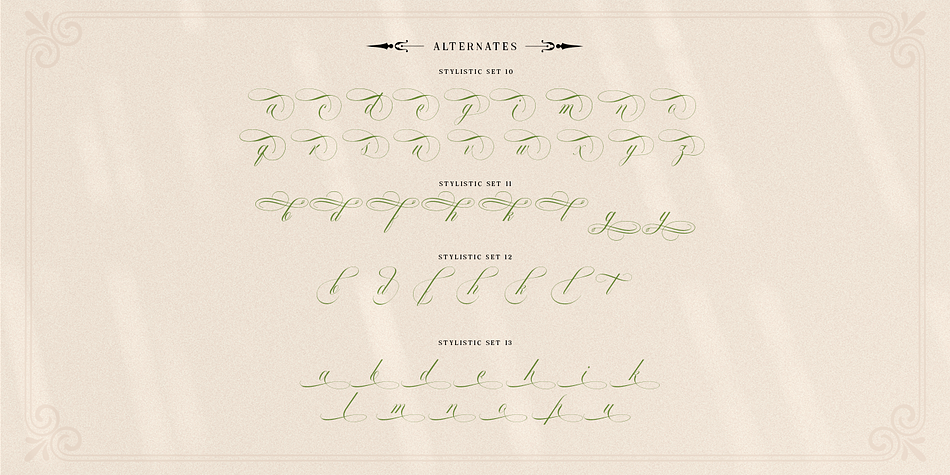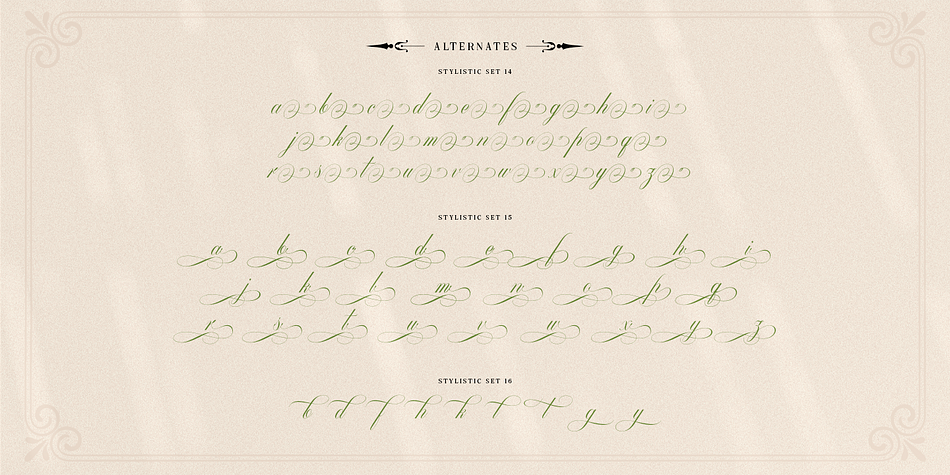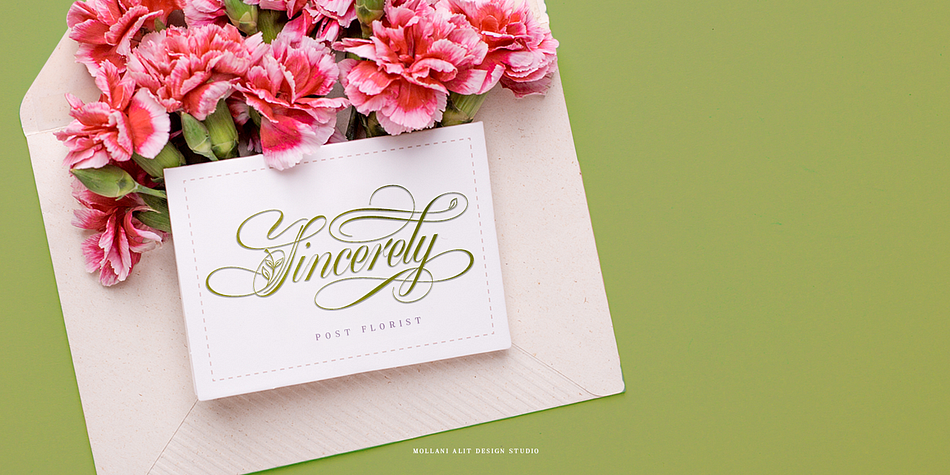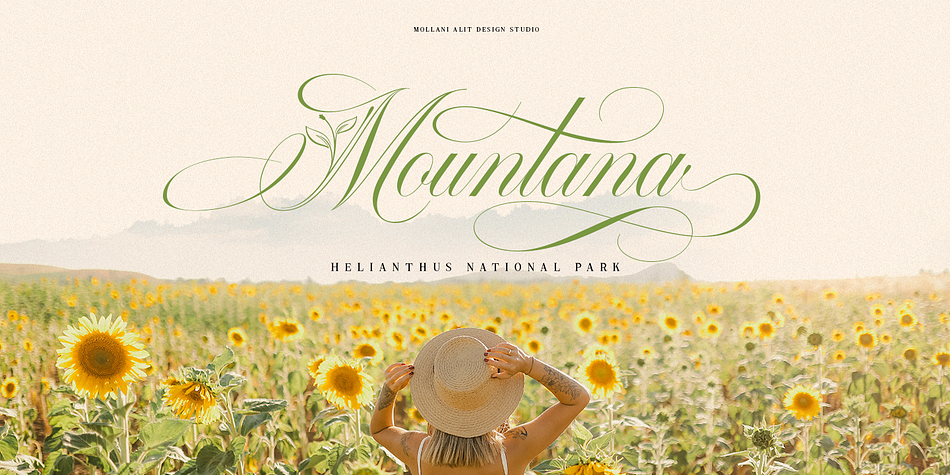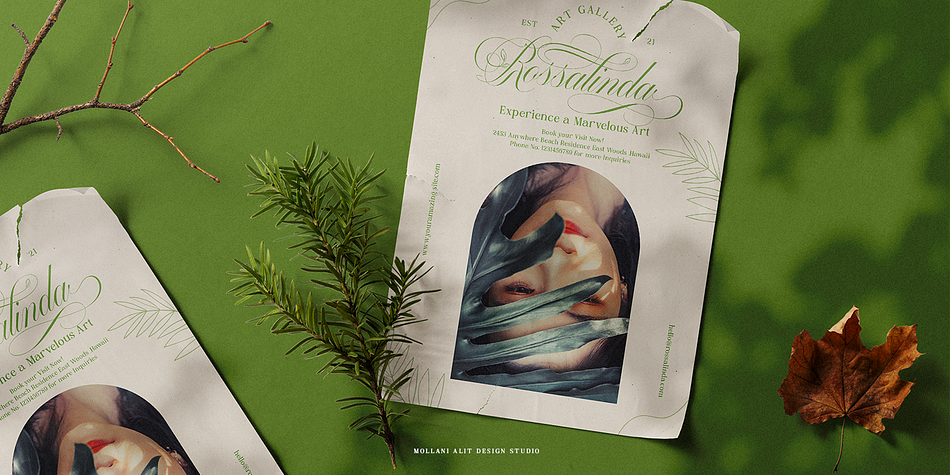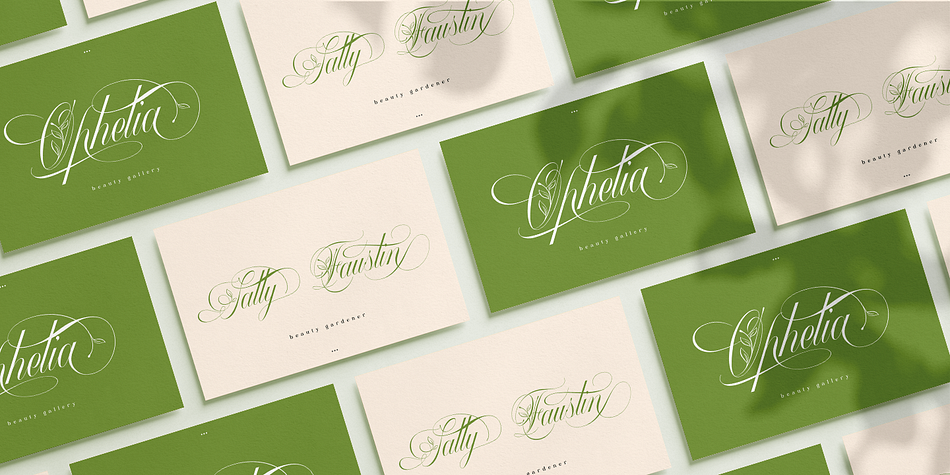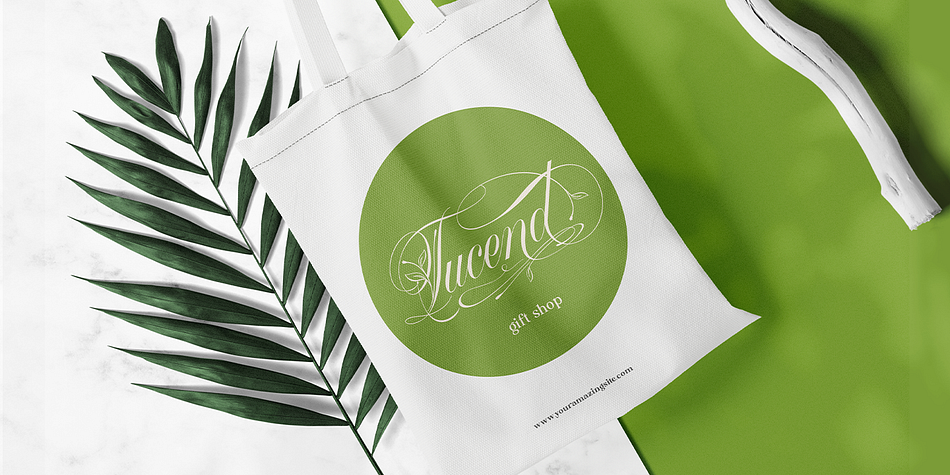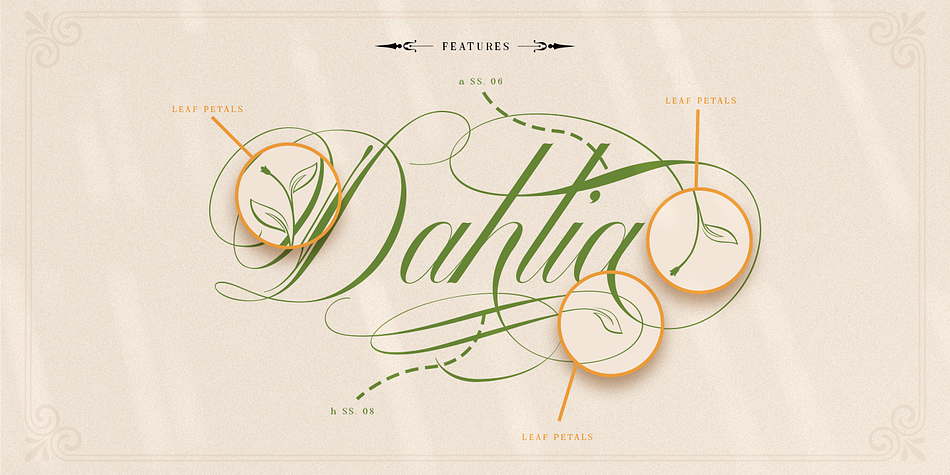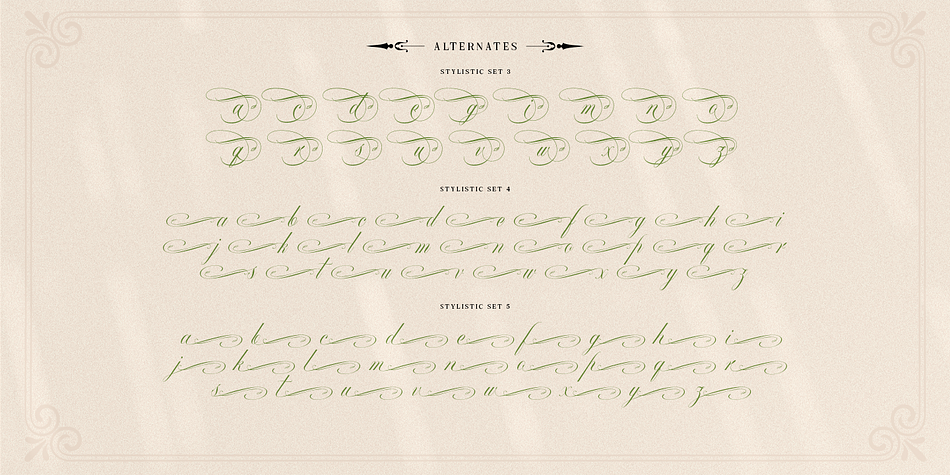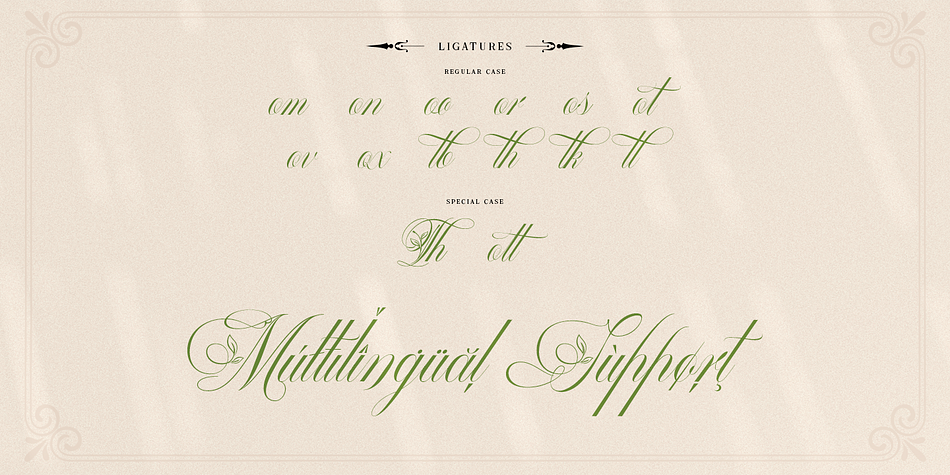
Mollani Nature Script
Designed by Alit Suarnegara, Mollani Nature Script is a modern calligraphy font family published by Alit Design.
Welcome to the Mollani font page, Thank you for visiting and finding this font. The Mollani font is inspired by elegant script fonts combined with the concept of nature. It can be seen by the beautiful and fitting leaf ornaments that make the Mollani font besides elegance also unique with the concept of nature.
The Mollani font includes full set of Uppercase and Lowercase Basic Characters, Numerals, Punctuation and Multi lingual support. Also it contains ligatures and a lot of stylistic alternatives to perfectly re-create natural calligraphy and nature concept designs (check the previews in order to see them all).
The Mollani font has alternatives that you can combine between swashes and symbols that have the theme of elegant nature. Besides that this font is very easy to use both in design and non-design programs because everything changes and glyphs are supported by Unicode (PUA).
The Mollani Nature Script Font has a total of 818 glyphs including symbol, multilingual.
Language Support : Latin, Basic, Western European, Central European, South European,Vietnamese.